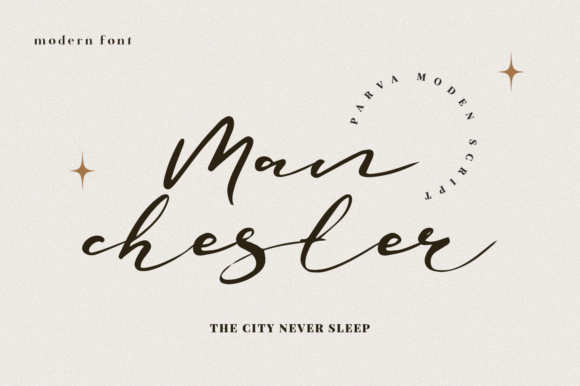
Welcome to the world of Parva Font, where elegance and beauty intertwine to create a masterpiece of typography. This exquisite script font is crafted with precision, exuding an aura of luxury and sophistication. Dive into the depths of creativity with Parva, your perfect ally for crafting enchanting designs that capture hearts and leave a lasting impression.
Parva Font, a creation of Kreativ_Fc, is a symphony of flowing lines and graceful curves. It dances across your screen like a gentle whisper, leaving a trail of visual delight in its wake. Each character is meticulously crafted to evoke emotions and add a touch of magic to your designs. Whether you're a seasoned designer or just starting, Parva will elevate your work to new heights.
Step into a world of endless possibilities with Parva Font. Its versatility knows no bounds, making it a perfect fit for countless projects. From captivating logos and branding to stunning invitations and social media graphics, Parva adds a touch of elegance to every creation. Its natural and unique style blends seamlessly with a variety of design aesthetics, creating cohesive and visually striking outcomes.
With Parva Font, you'll discover a font that speaks to your soul. Its ability to convey emotions is truly remarkable. From the delicate strokes that evoke a sense of romance to the bold lines that exude strength and confidence, Parva adapts to your message, amplifying its impact and leaving an unforgettable impression on your audience.
Be it a beauty website, a fashion catalog, or an enchanting wedding invitation, Parva Font is your secret weapon for creating designs that resonate with your audience. Its timeless beauty and ability to evoke emotions make it a must-have for any designer seeking to make a statement.
Dare to embrace the extraordinary with Parva Font. Its natural and unique style will transform your designs into captivating masterpieces. Experience the fusion of elegance and creativity, and let Parva be your guide on a journey of design excellence.